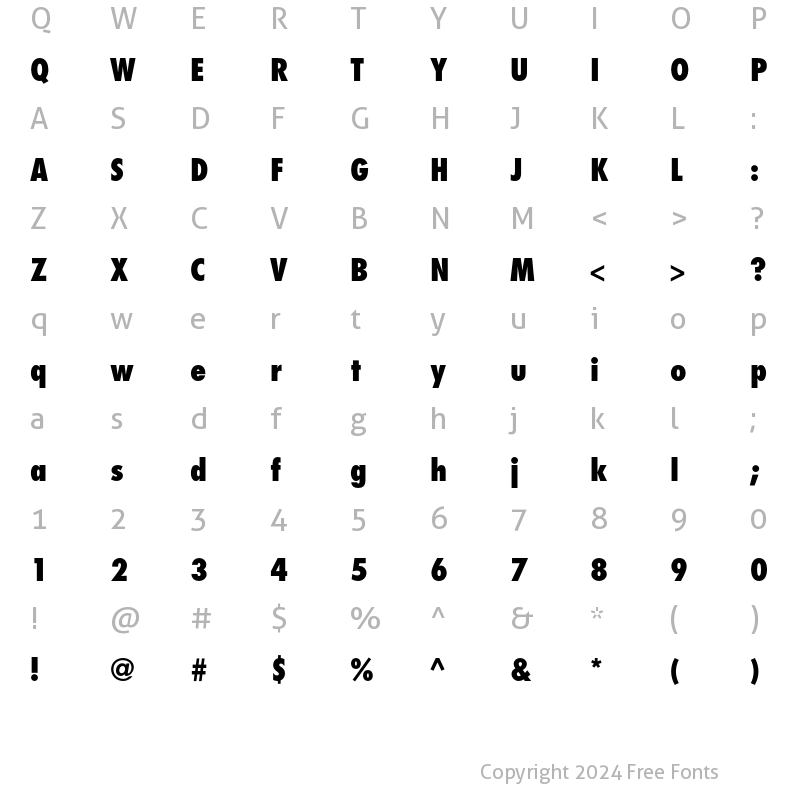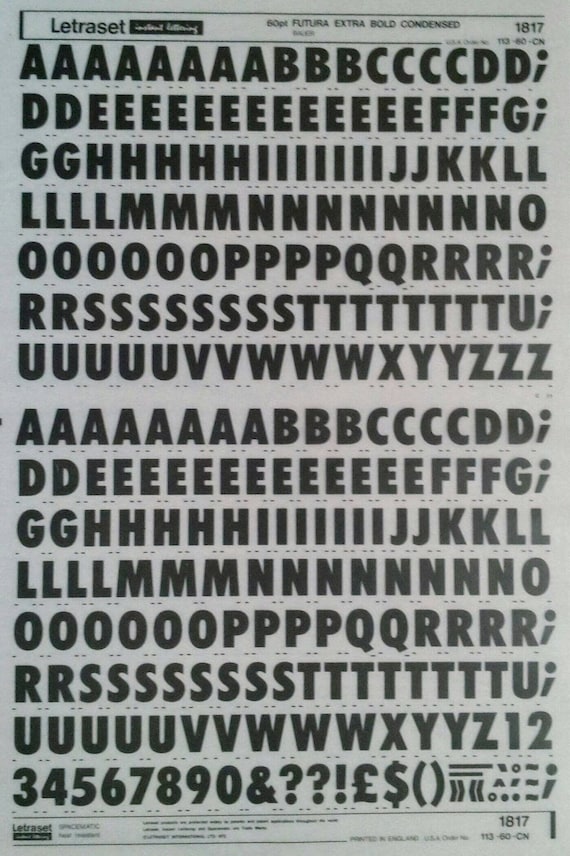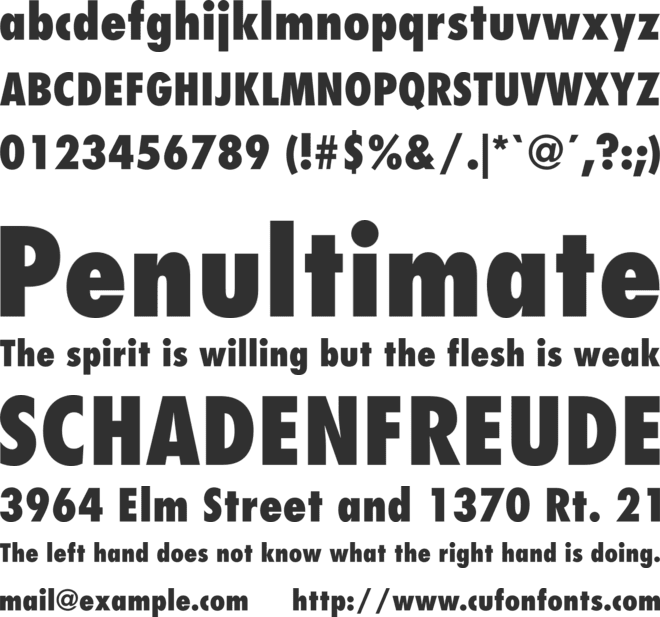
Futura Condensed Extra Bold Font
Futura Condensed Extra Bold Font - Discover the free futura std condensed extra bold font at free font download ! The characters are uniform in weight, providing a. This font features bold, condensed letterforms with a strong geometric structure. Installable on pc, mac, linux, ios, and android platforms.